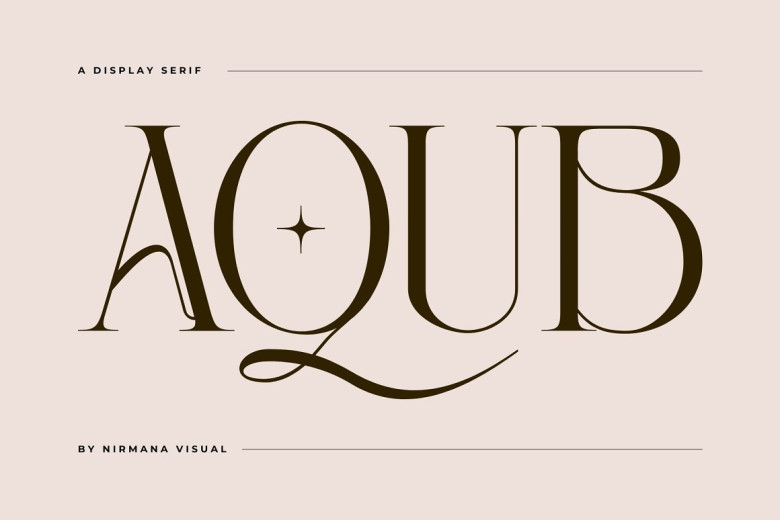
Aqub Font
Aqub Font is an exquisite serif typeface with traditional and contemporary styles combined. Equipped with distinctive ligatures, oblique ligatures and alternative fonts, Aqub provides stunning typographic harmony to suit a wide variety of design tasks such as logos, branding social media posts and product advertisements designs.
Aqub Serif Font